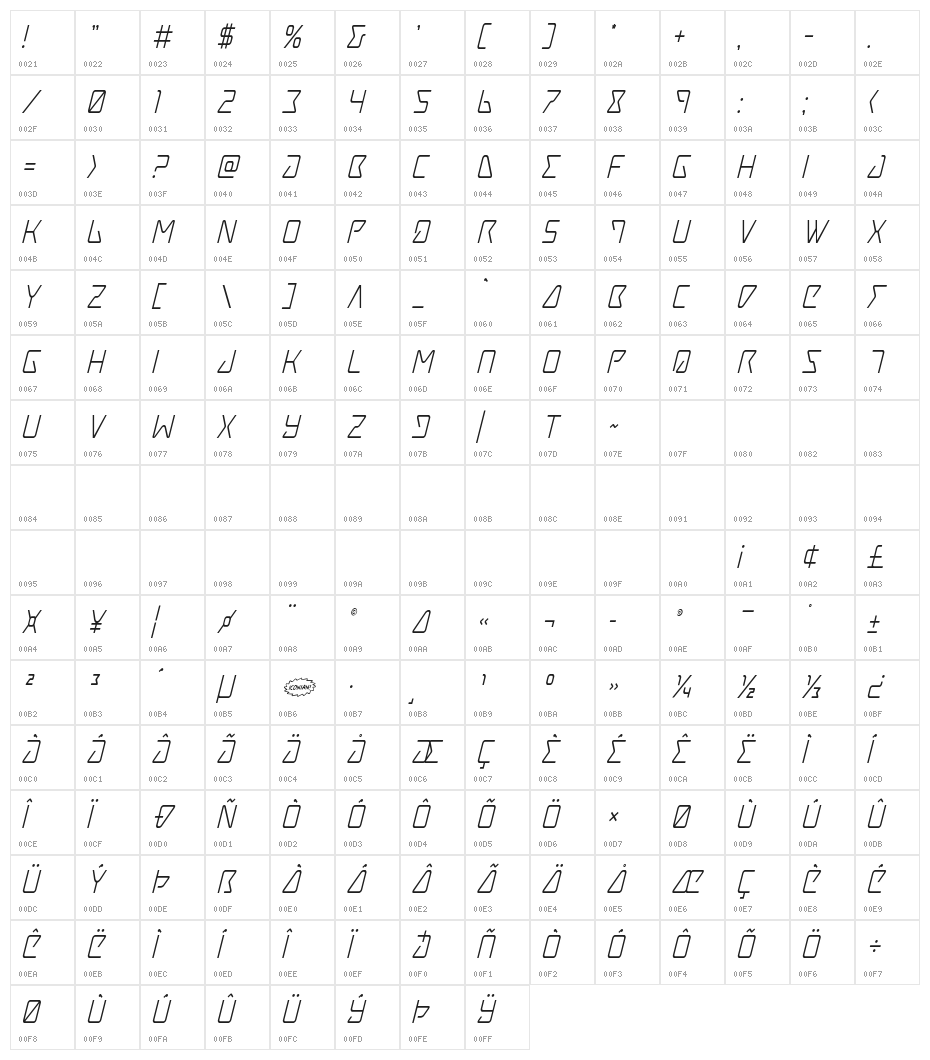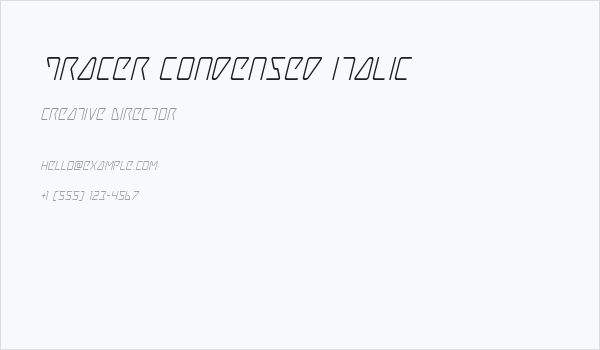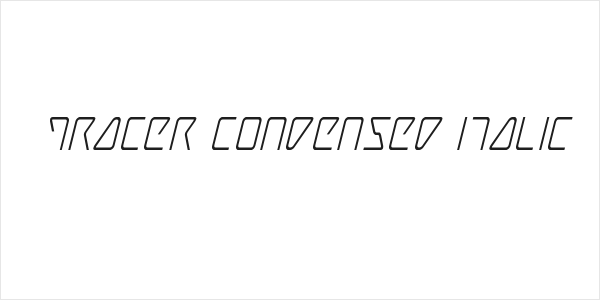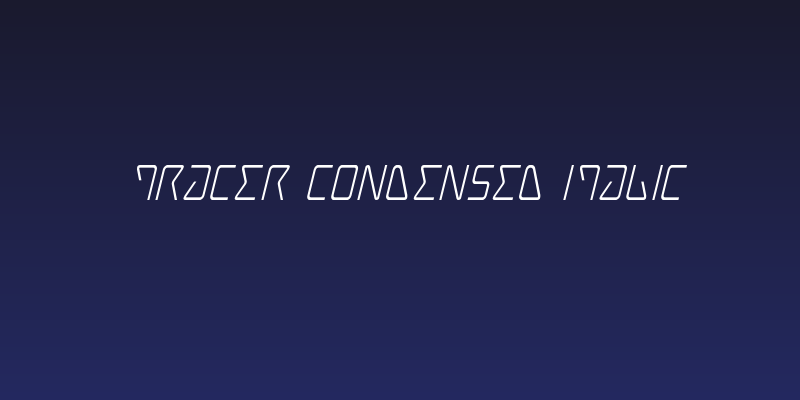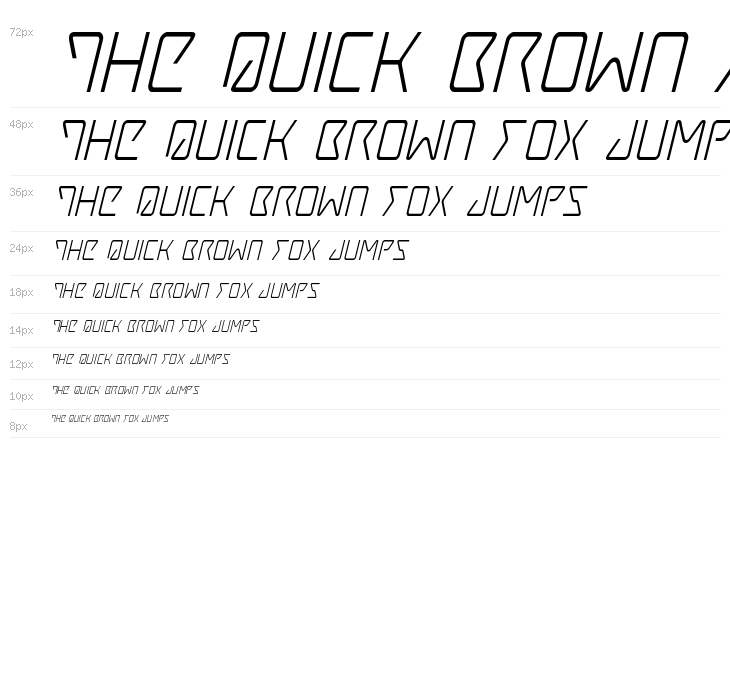
Tracer Condensed Italic Font
Tracer Condensed Italic Description
This font features a futuristic and angular design, characterized by its sharp, geometric shapes and condensed form. The italic style adds a dynamic and forward-leaning appearance, enhancing its modern aesthetic. Each character is crafted with precision, showcasing a unique blend of straight lines and subtle curves. The font maintains a consistent stroke width, providing a clean and uniform look across all characters. Its distinctive style makes it suitable for projects that require a contemporary and edgy feel, such as technology branding, sci-fi themes, and modern advertising.
| Overall Style | Futuristic and edgy |
| Proposed Projects | Ideal for technology branding, sci-fi themes, modern advertising, and innovative product packaging. |